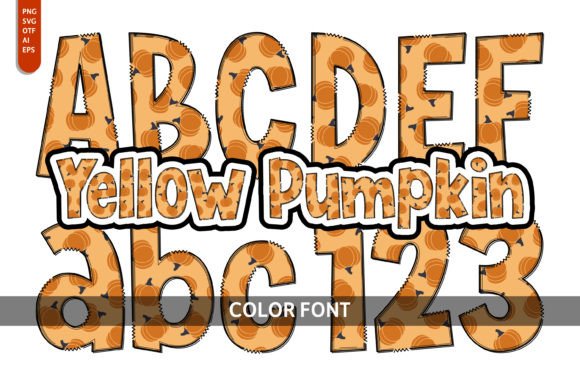
Step into a world of enchantment and creativity with Yellow Pumpkin Font, a whimsical color font that captures the magic of autumn. Let the warmth of golden hues embrace your designs, as each letter dances with the charm and playfulness of ripe pumpkins. Unleash the boundless potential of your imagination and transform your projects into captivating works of art.
Immerse yourself in the coziness and delight of Yellow Pumpkin Font. It's the perfect font for crafting seasonal designs that radiate joy and warmth. Create enchanting invitations that bring the beauty of fall to life, or use it to add a touch of playfulness to your crafting projects. The possibilities are endless, just like the colors of autumn leaves.
With Yellow Pumpkin Font by Imagination Switch, you have the power to make your creative vision come alive. Express your individuality and let your imagination soar as you design logos, website headers, social media graphics, and more. Its unique charm is sure to leave a lasting impression, captivating your audience and evoking a sense of wonder.